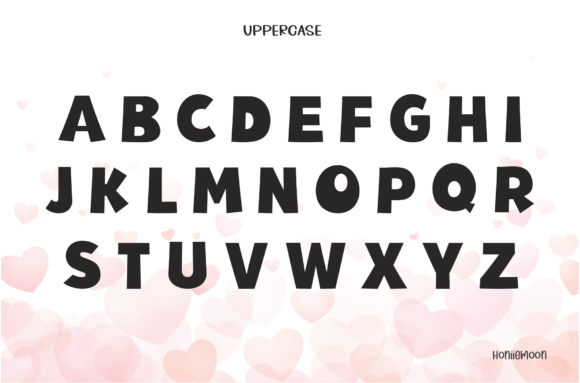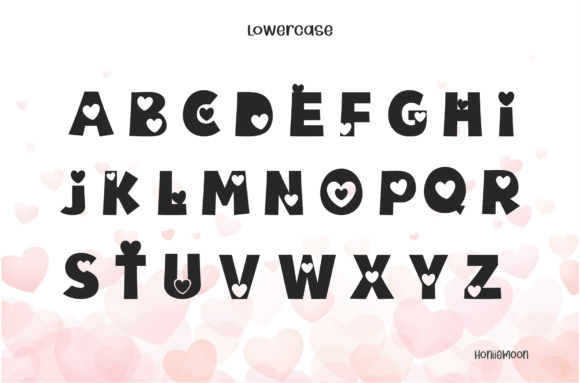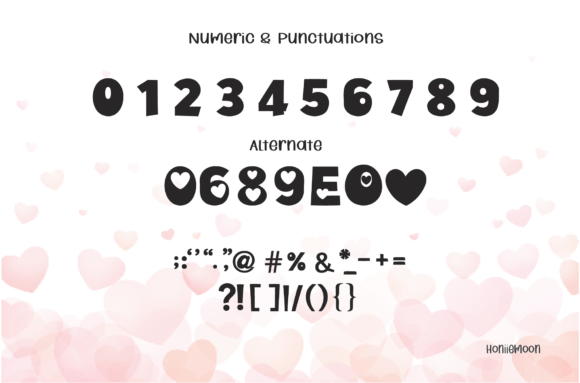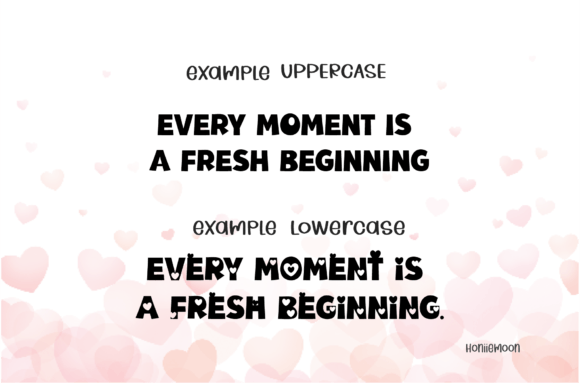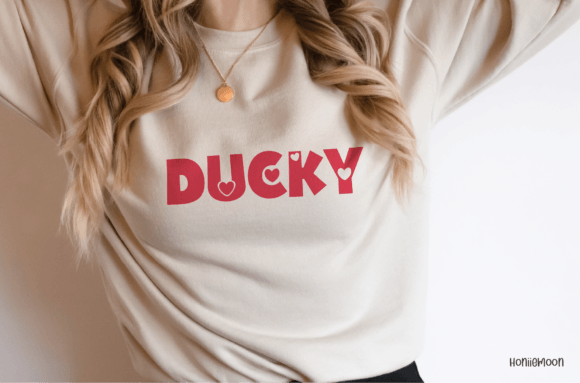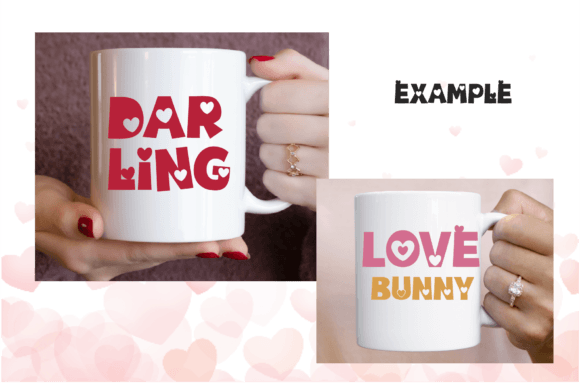
Introduction to Honiie Font
Honiie is a cool and fun display font.
It looks both cute and jolly and it will enhance each of your designs The only limit is your imagination.
Honiie Font offers exceptional quality and versatility, making it a valuable addition to your design toolkit. Whether you’re creating for personal projects or commercial use, Honiie Font delivers professional results.